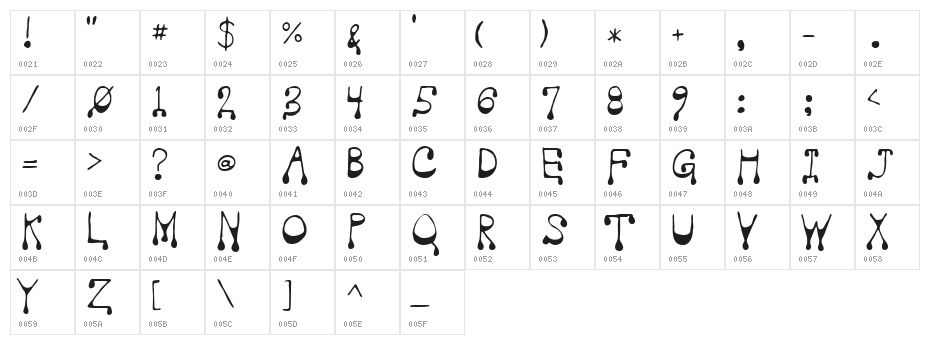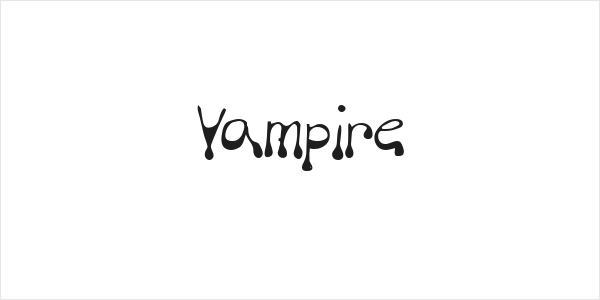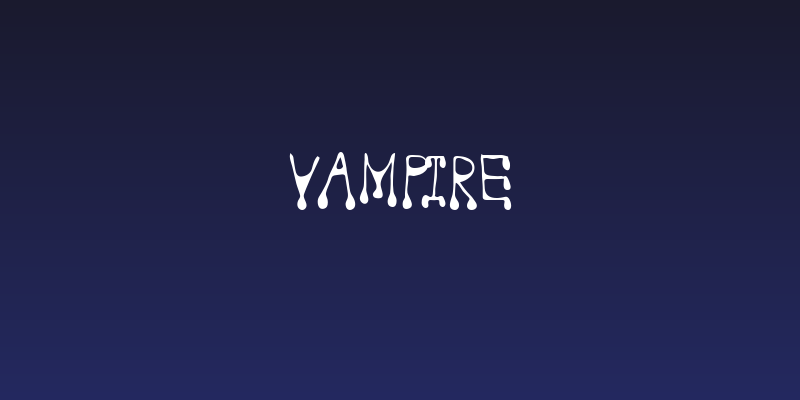
Vampire Font
Vampire Description
This font features a unique and dramatic style with elongated, droplet-like terminals that give it a dripping effect. The characters are bold and have a playful yet eerie appearance, reminiscent of horror or Halloween themes. The uppercase and lowercase letters maintain a consistent style, with rounded edges and a fluid, organic form. Numbers and special characters follow the same design principles, ensuring a cohesive look across all glyphs. The font's distinctiveness makes it suitable for eye-catching designs.
Proposed ProjectsIdeal for Halloween-themed posters, horror movie titles, spooky invitations, and decorative signage.